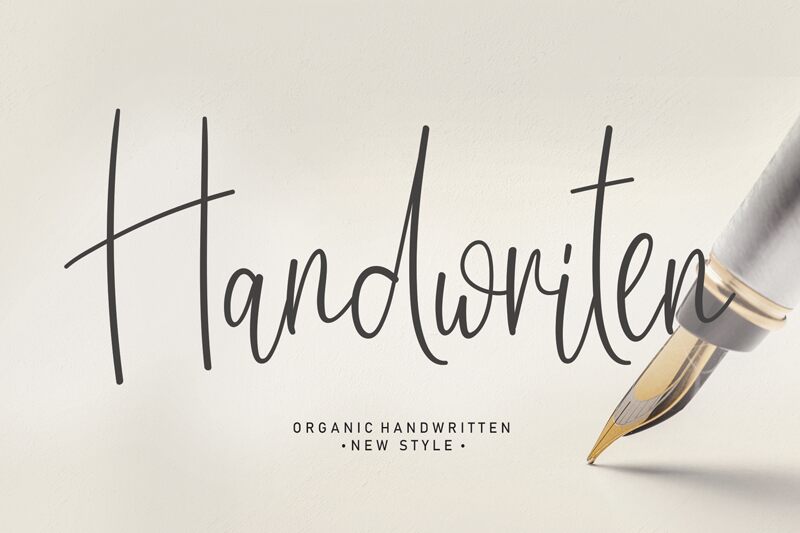
Handwriten
Handwriten, a creation by Scratchones, is an extraordinary organic handwritten font. With its extra-light weight and semi-condensed width, this font exudes an elegant yet playful feel. Perfect for greeting cards and invitations, Handwriten adds a touch of whimsy to any project. Its delicate strokes lend themselves beautifully to wedding stationery, while the unique character of the letters makes it ideal for children's book covers.
Whether you're designing a cozy café menu or crafting a branding concept for a boutique fashion label, Handwriten will effortlessly infuse charm and creativity into your work.